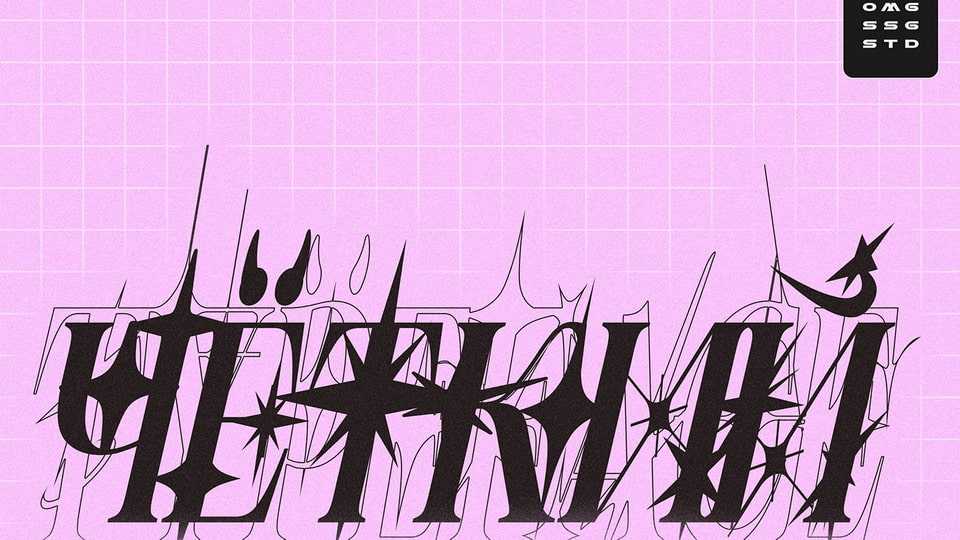
Download Chetkiy font, a unique Y2K-inspired typeface, available in both regular and Italic styles, combines soft, playful shapes with a fun and charming personality.
Designer: OMG SSG STUDIO